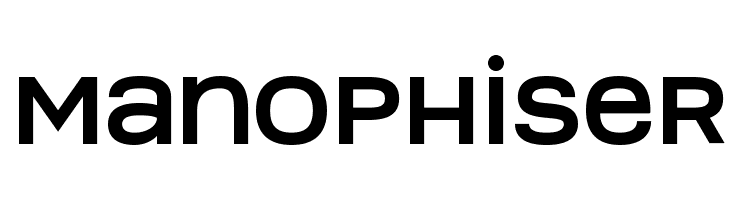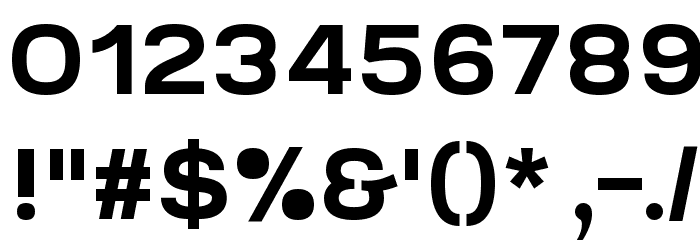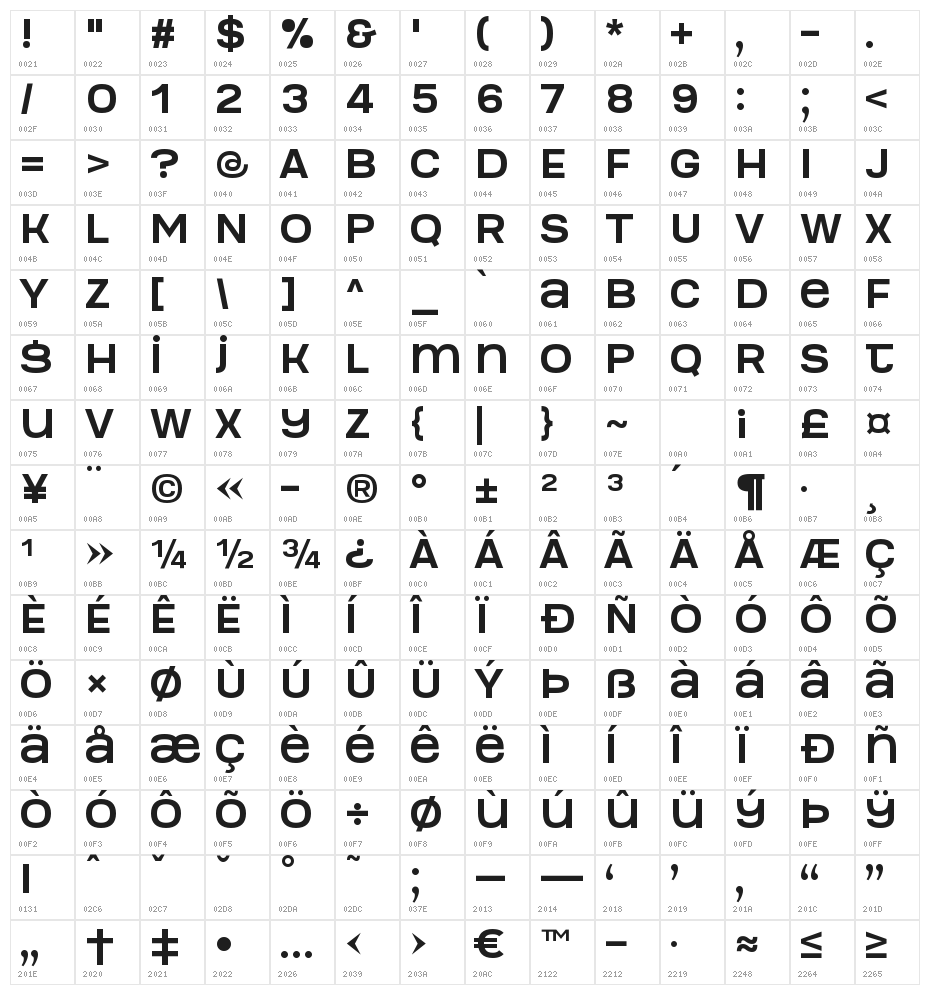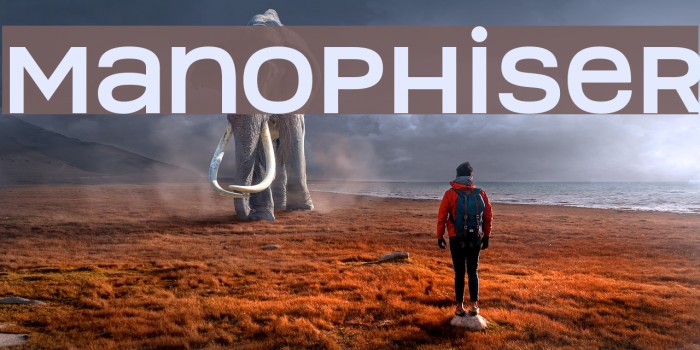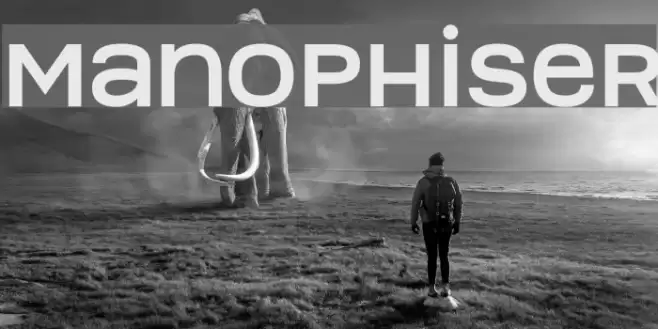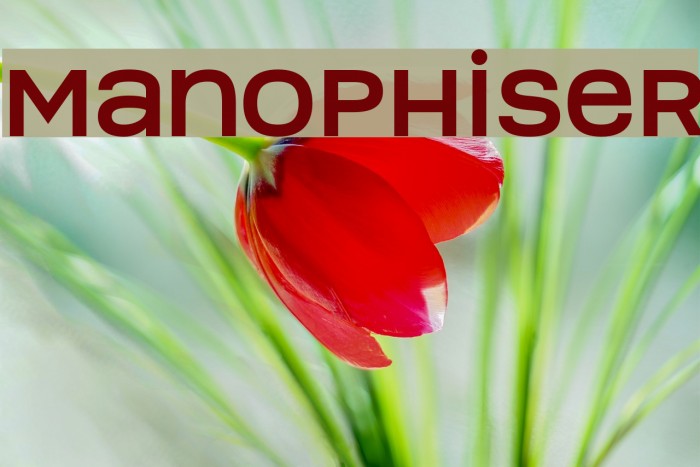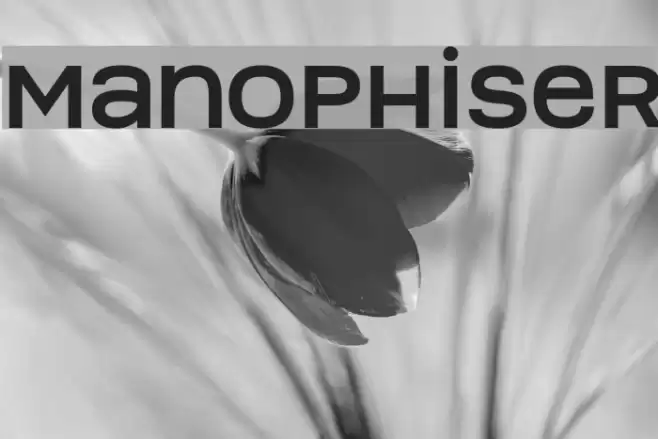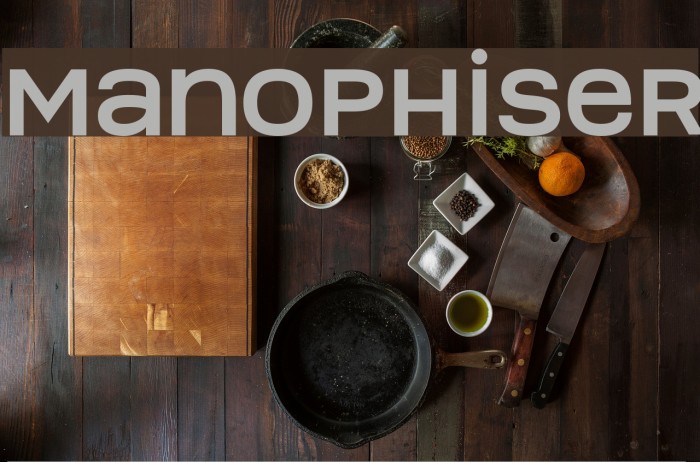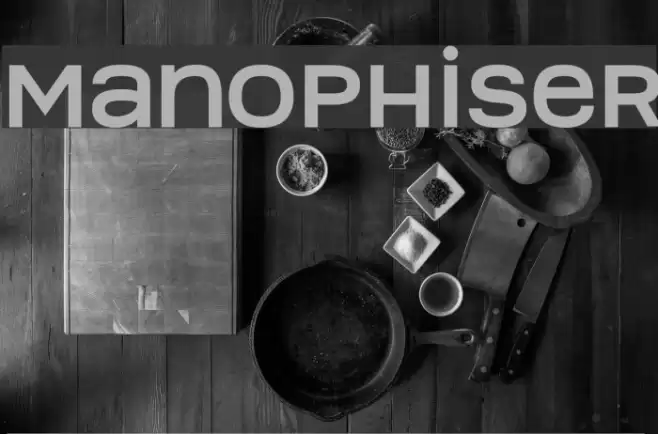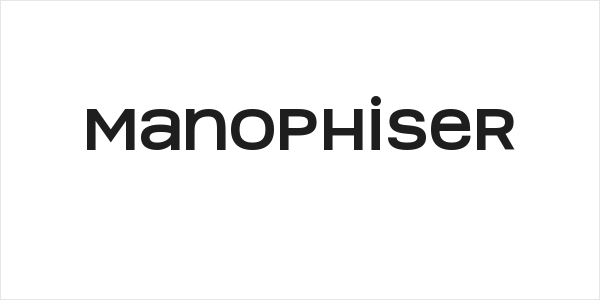
Manophiser Font
Manophiser Description
This font features a bold and modern sans-serif style with clean lines and a uniform stroke width. The uppercase and lowercase letters are well-balanced, providing a harmonious appearance. The numerals are clear and easily distinguishable, making them suitable for various applications. Special characters are included, maintaining the font's cohesive look. The overall design is sleek and contemporary, ideal for projects that require a strong visual impact.
| Use Case | Headlines, Logos, Digital Media |
| Proposed Projects | Ideal for branding, advertising, headlines, and digital media where a strong, modern look is desired. |